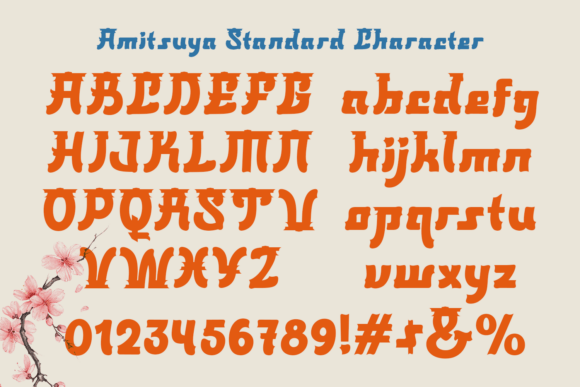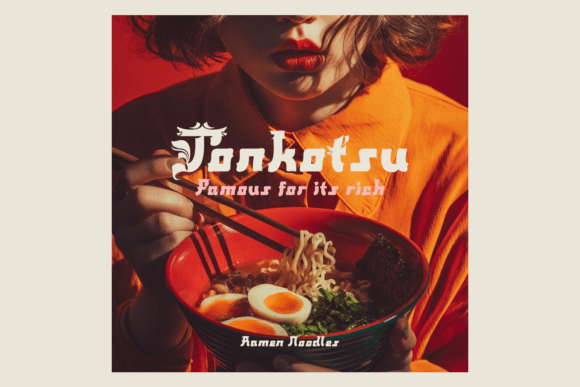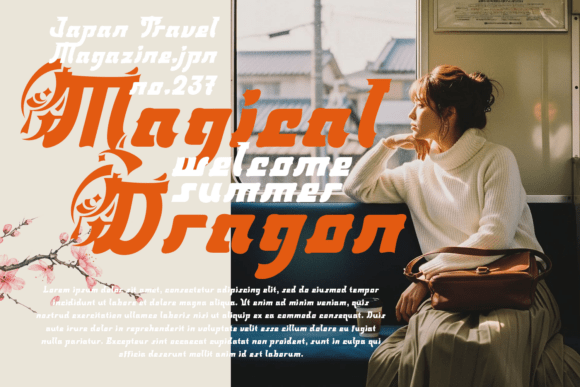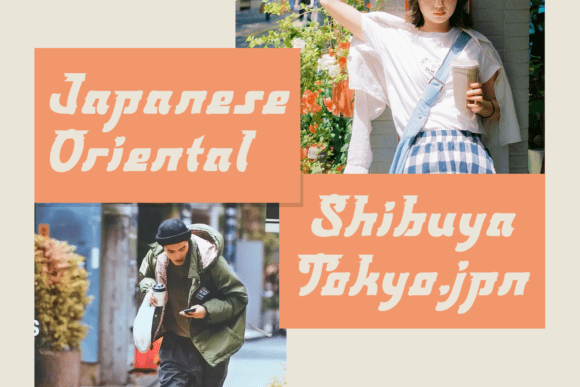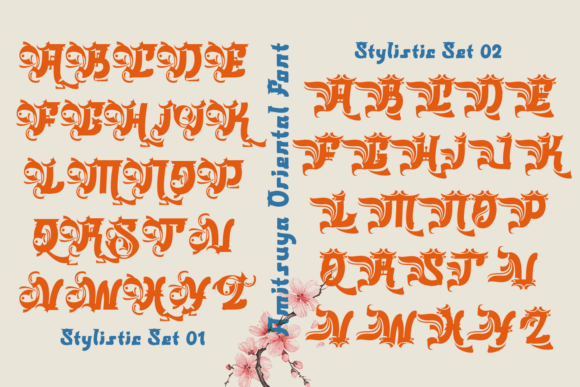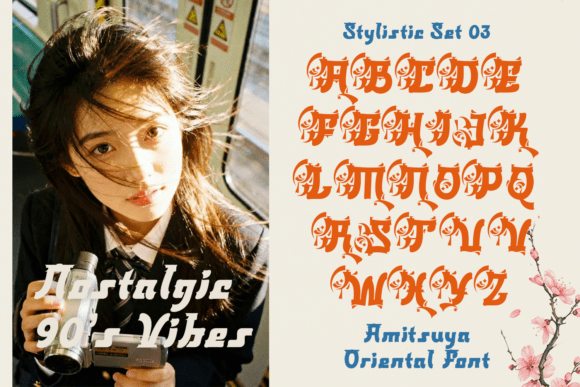
Introducing Amitsuya Font: A Typographic Design Inspired by Japanese Visual Style
Are you looking for a font that embodies the essence of Japanese art and culture? Look no further than Amitsuya Font, a stunning typographic design that draws inspiration from traditional and modern Japanese visual styles. In this article, we’ll explore the unique features of Amitsuya Font, its design elements, and how it can elevate your design projects to new heights.
The Inspiration Behind Amitsuya Font
Amitsuya Font is a masterful blend of traditional and modern Japanese artistic styles, commonly seen in illustrations, posters, and creative typographic works. The font’s design elements are reminiscent of Japan’s rich cultural heritage, with subtle nods to its vibrant modern aesthetic. Whether you’re a designer, crafter, or simply a font enthusiast, Amitsuya Font is sure to captivate you with its unique charm.
Design Elements of Amitsuya Font
Amitsuya Font boasts a range of distinctive design elements that set it apart from other typographic designs. Some of its notable features include:
- Intricate lettering: Amitsuya Font features intricate lettering with subtle flourishes, evoking the traditional Japanese art of calligraphy.
- Geometric patterns: The font incorporates geometric patterns inspired by traditional Japanese motifs, such as Kanoko and Kumiko.
- Modern twists: Amitsuya Font also incorporates modern design elements, such as bold lines and clean typography, to give it a fresh and contemporary feel.
Why Choose Amitsuya Font for Your Design Projects?
Amitsuya Font is an excellent choice for designers and crafters looking to add a touch of Japanese flair to their projects. Here are just a few reasons why:
- Perfect for Japanese-themed projects: Whether you’re working on a project that requires a Japanese aesthetic, such as a travel brochure or a food blog, Amitsuya Font is an ideal choice.
- Versatile: Amitsuya Font can be used in a variety of design projects, from digital media, such as websites and social media graphics, to printed materials, like posters and business cards.
- Elegant and sophisticated: Amitsuya Font exudes elegance and sophistication, making it perfect for high-end design projects that require a touch of refinement.
Tips for Using Amitsuya Font Effectively
To get the most out of Amitsuya Font, here are some tips for using it effectively in your design projects:
- Pair with complementary fonts: Amitsuya Font pairs well with clean, sans-serif fonts, such as Open Sans or Lato.
- Experiment with colors: Amitsuya Font looks stunning in bold, vibrant colors, such as Pantone’s Japanese-inspired color palette.
- Play with textures: Add depth and interest to your design by combining Amitsuya Font with textures inspired by traditional Japanese art, such as Washi paper or Ukiyo-e woodblock prints.
Amitsuya Font is a unique and captivating typographic design that embodies the essence of Japanese art and culture. With its intricate lettering, geometric patterns, and modern twists, this font is perfect for designers and crafters looking to add a touch of Japanese flair to their projects. Whether you’re working on a digital or printed design project, Amitsuya Font is sure to elevate your work to new heights. So why not give it a try and experience the beauty of Japanese typography for yourself?